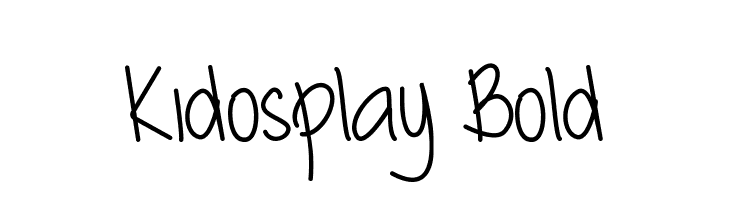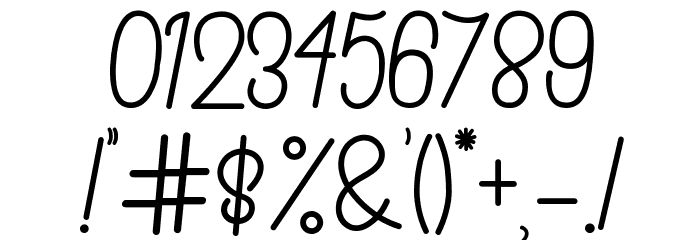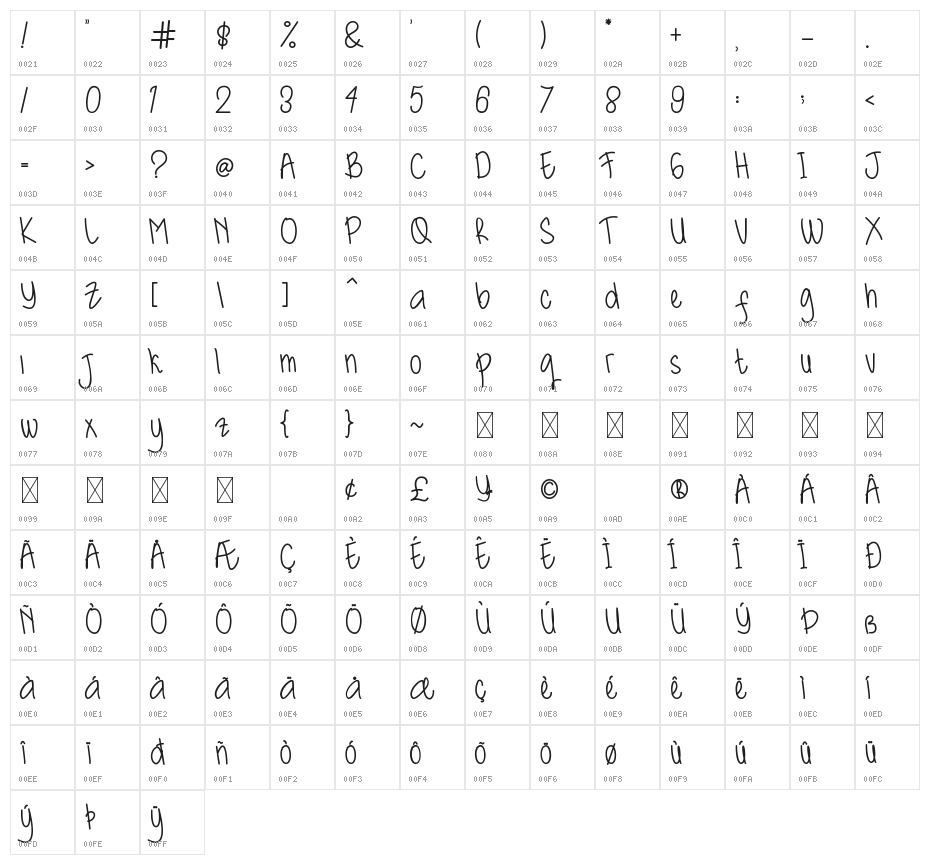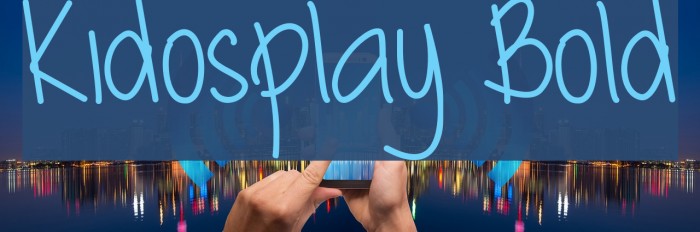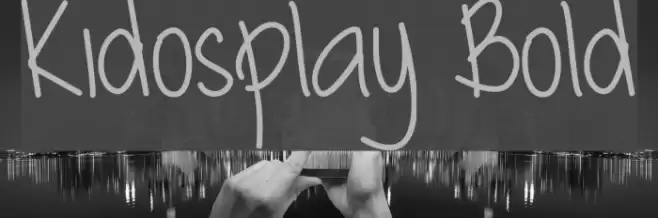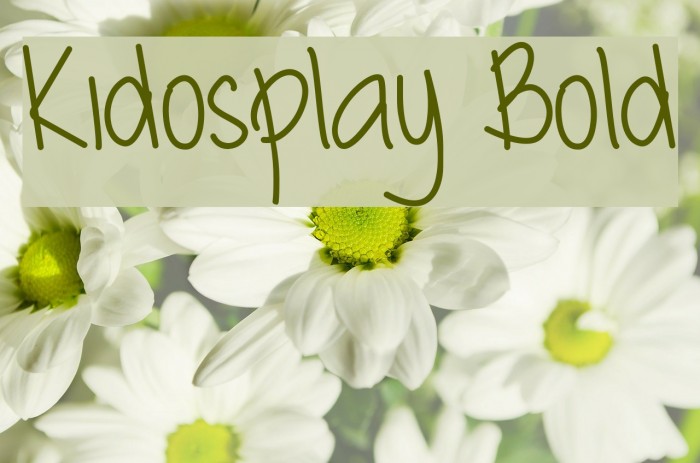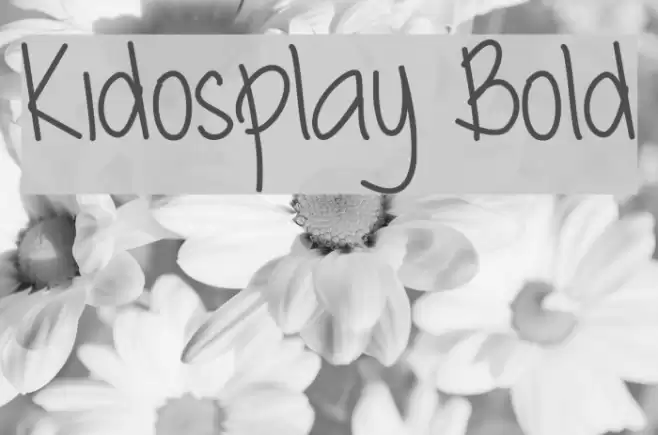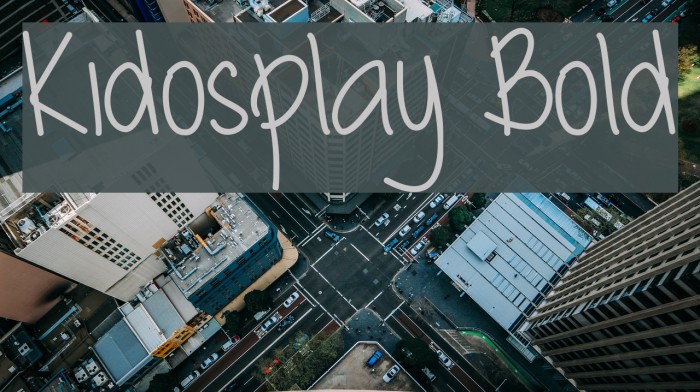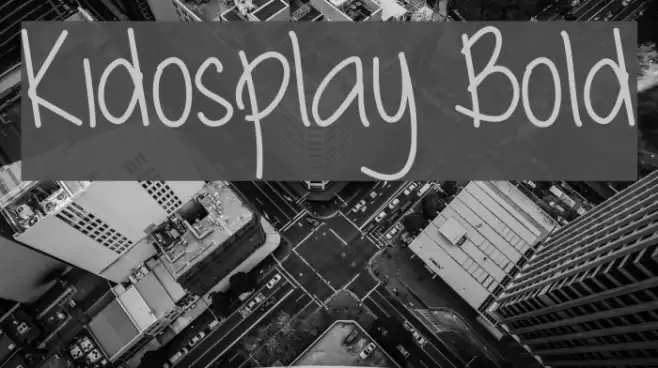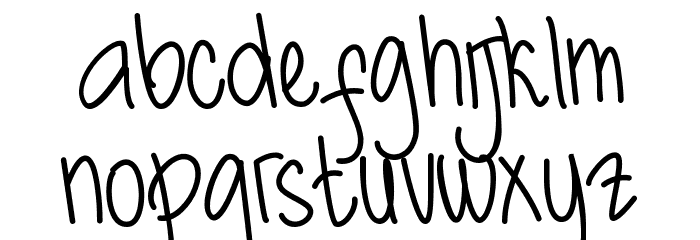
Kidosplay Bold Font
Kidosplay Bold Description
This playful and energetic font features a handwritten style with a casual and friendly appearance. The characters are slightly irregular, adding a whimsical touch that makes it stand out. The strokes are consistent in weight, giving it a balanced look, while the rounded edges contribute to its approachable feel. The font maintains a good readability with its clear letterforms, making it suitable for various creative projects. Its unique style is perfect for designs that aim to convey fun and informality.